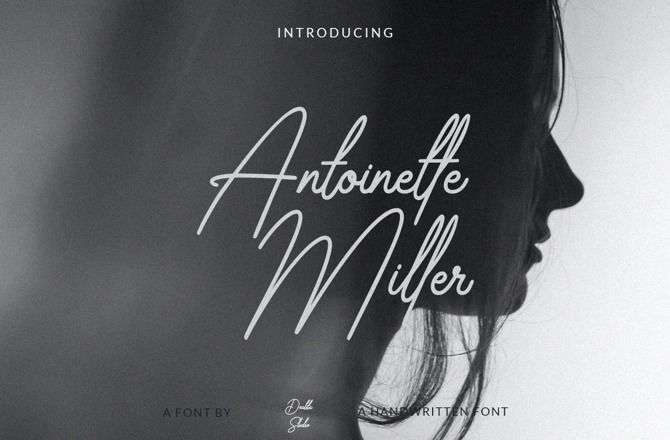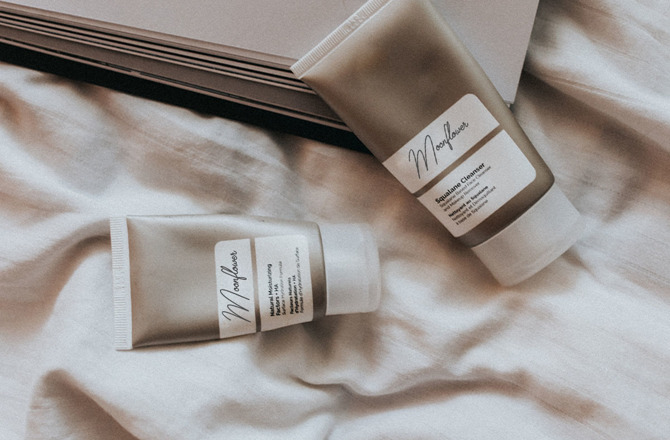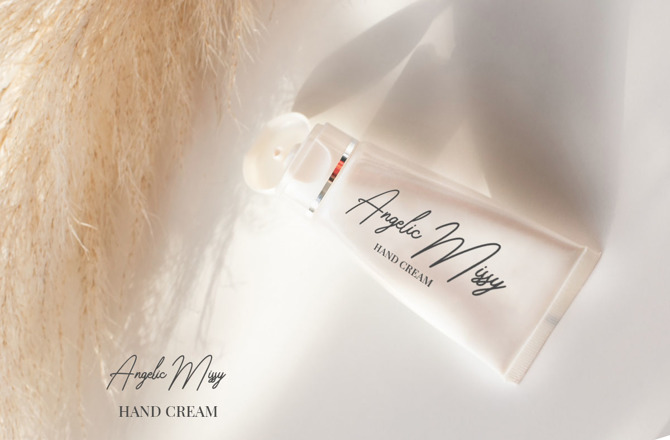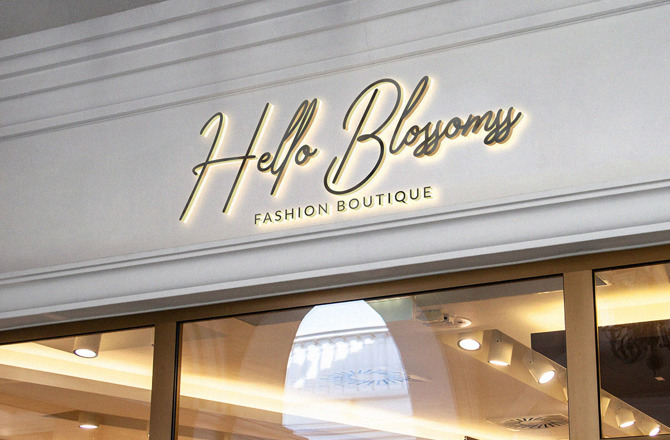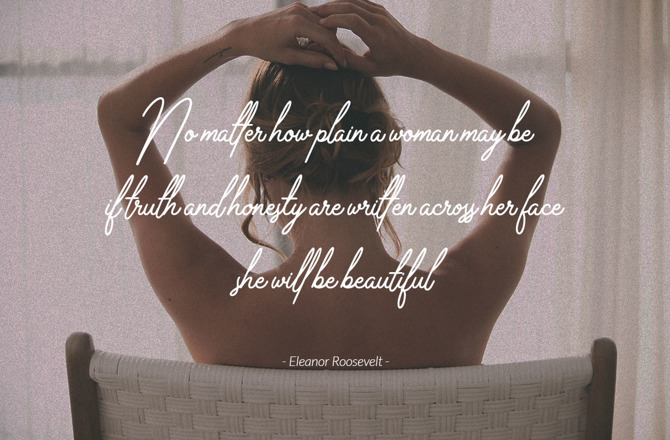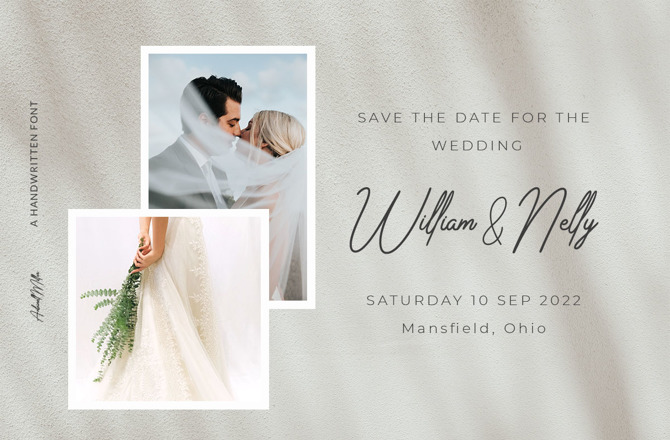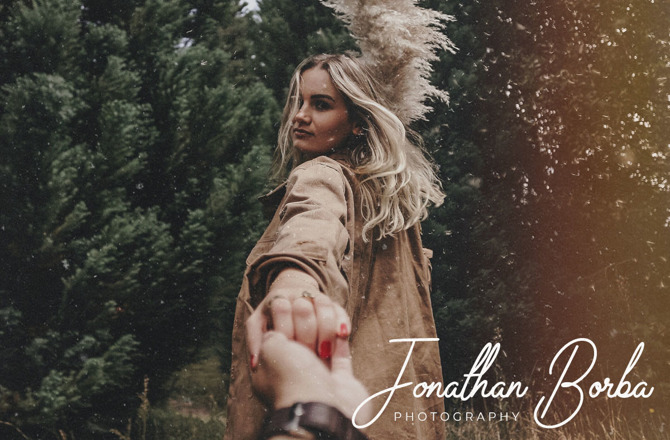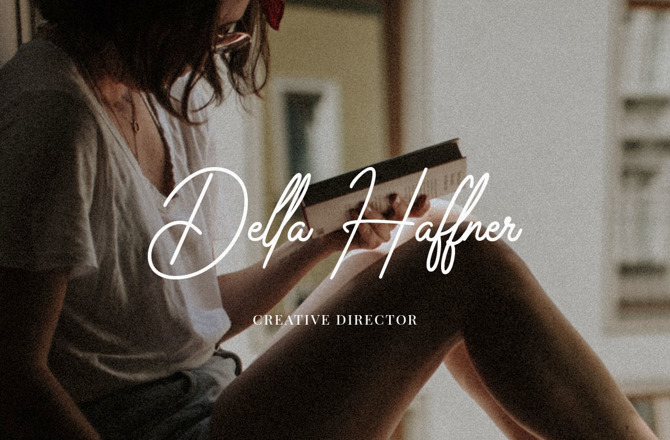
Antoinette Miller – Delicate Monoline Script Font
Antoinette Miller – Delicate Monoline Script
Antoinette Miller is a delicate monoline script font that exudes elegance, grace, and timeless beauty. With its clean, single-weight lines and flowing rhythm, Antoinette is perfect for wedding invitations, beauty branding, and luxury logos that demand a soft, feminine touch.
Ideal for bridal stationery, skincare labels, fashion boutique logos, and romantic quotes, Antoinette adds a hand-crafted sophistication to your designs. Its minimalist structure and consistent monoline stroke weight make it ideal for modern calligraphy-style projects where clarity meets charm.
Ideal Applications:
- High-end wedding and bridal stationery
- Luxury skincare and beauty branding
- Modern fashion boutique logos
- Feminine quotes and social media graphics
✨ Key Features:
- Monoline Script: Consistent, single-weight lines for a modern, clean look.